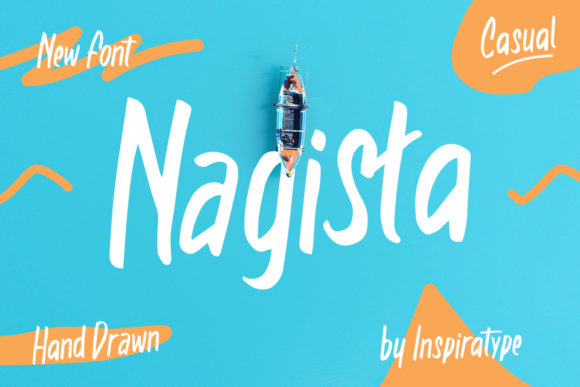
Introducing Nagista Font: The Epitome of Text Tattoo Charm
Immerse yourself in the enchanting realm of Nagista Font, where the art of calligraphy meets the indelible magic of text tattoos. Crafted with the finesse of an expert brush pen, this script font emanates an air of elegance and sophistication, inviting you to express your individuality with flair and panache.
Nagista's fluid strokes dance across the page, effortlessly capturing the essence of handwritten artistry. Its unique and timeless design transcends the boundaries of conventional fonts, offering a canvas for your creativity to soar. Unleash your imagination and craft spellbinding text tattoos that will leave an unforgettable mark on hearts and minds.
Whether you're a seasoned tattoo enthusiast or embarking on your first inked adventure, Nagista Font empowers you to transform your words into captivating body art. Its versatility extends to a myriad of tattoo styles, from delicate linework to bold and striking statements. Embrace the allure of personalization and make each tattoo a reflection of your unique spirit.
With Nagista Font, the possibilities are limitless. Adorn your body with meaningful quotes, cherished lyrics, or simply the names of those who hold a special place in your heart. Let your skin become a living testament to the stories, emotions, and dreams that define you.
As you delve into the world of Nagista Font, you'll discover a treasure trove of creative applications beyond tattoos. Its enchanting style lends itself to stunning logos, eye-catching posters, and a myriad of other design projects. Allow Nagista's elegance to elevate your creations and leave a lasting impression on your audience.